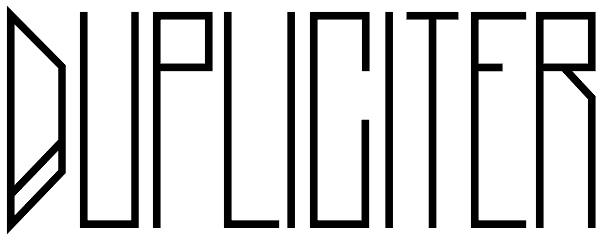
Dupliciter
"DUPLICITER is an experimental display sans serif font which has two typefaces for comfortable and experimental use. DUPLICITER is a (latest) part of new school in type design that could be called like mind-free and geometric direction in the world...